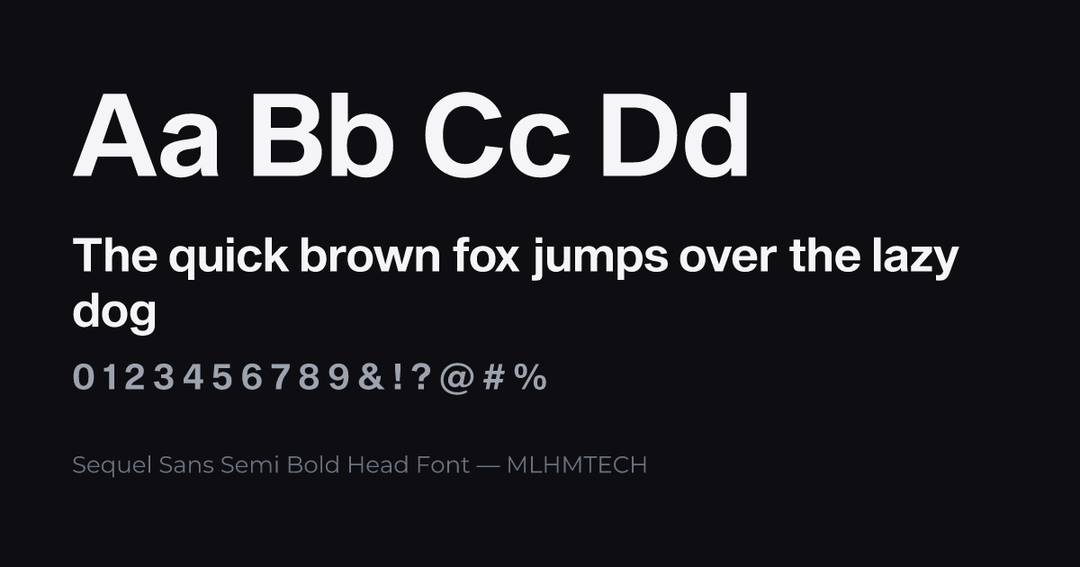
Sequel Sans Semi Bold Head Font
Sequel Sans Semi Bold Head is a versatile sans-serif font with a clean, modern look, ideal for headlines and branding.
Sequel Sans Semi Bold Head is a high-quality sans-serif typeface that combines geometric precision with a contemporary feel. Its semi-bold weight makes it perfect for headlines, titles, and display purposes where you need impact without sacrificing elegance.
This font is part of the Sequel Sans family, known for its excellent legibility and wide range of weights. The Semi Bold Head variant is specifically designed for larger sizes, ensuring crisp edges and consistent spacing even at big scales.
Whether you're working on a logo, poster, website, or video title, this font adds a professional touch. Its clean lines and modern proportions make it a go-to choice for designers seeking a reliable and stylish typeface.